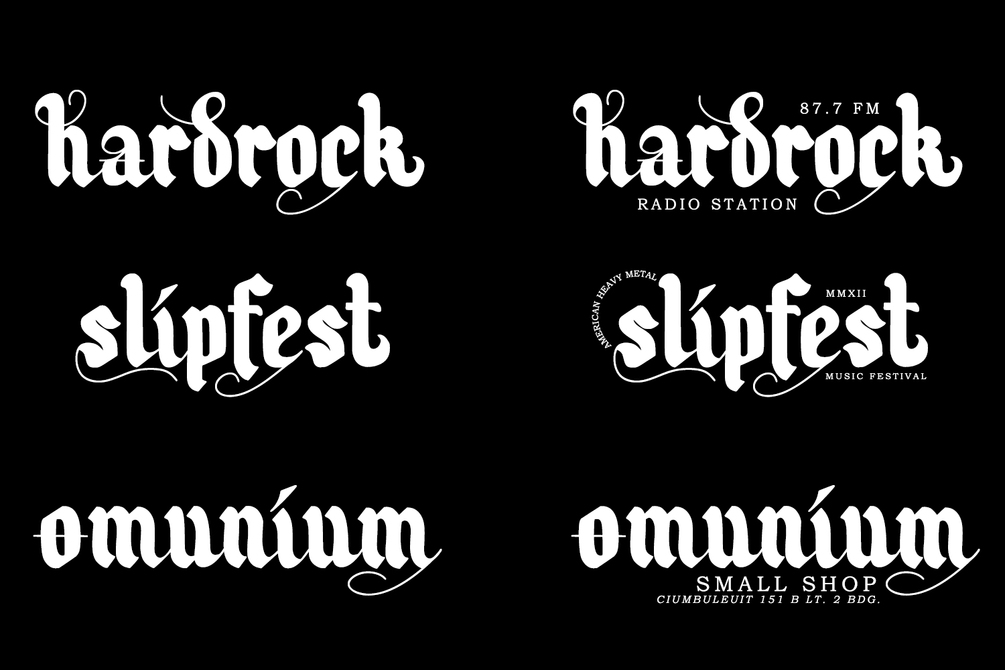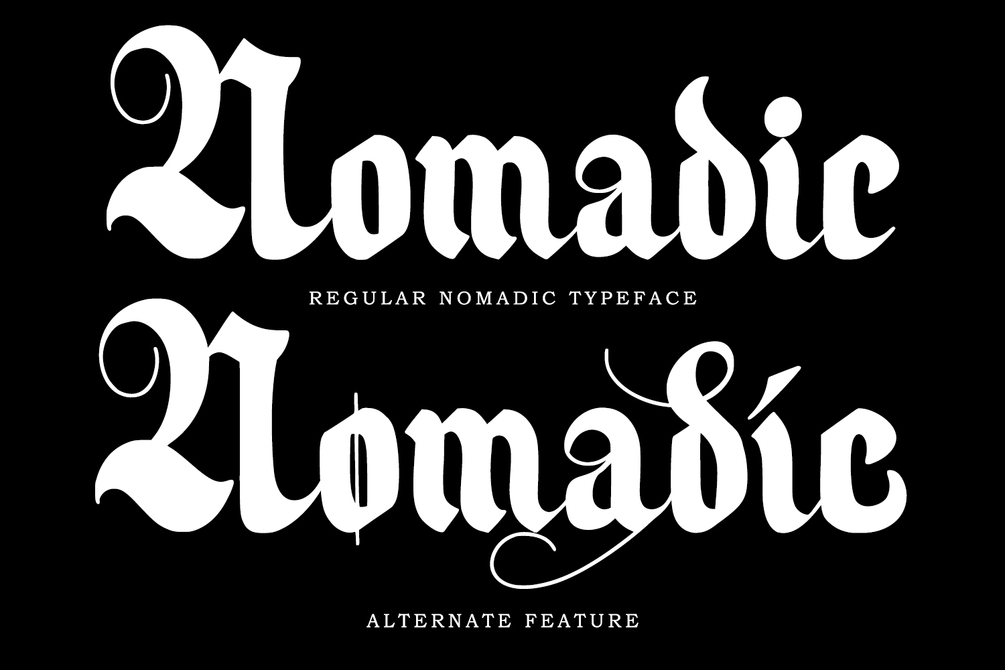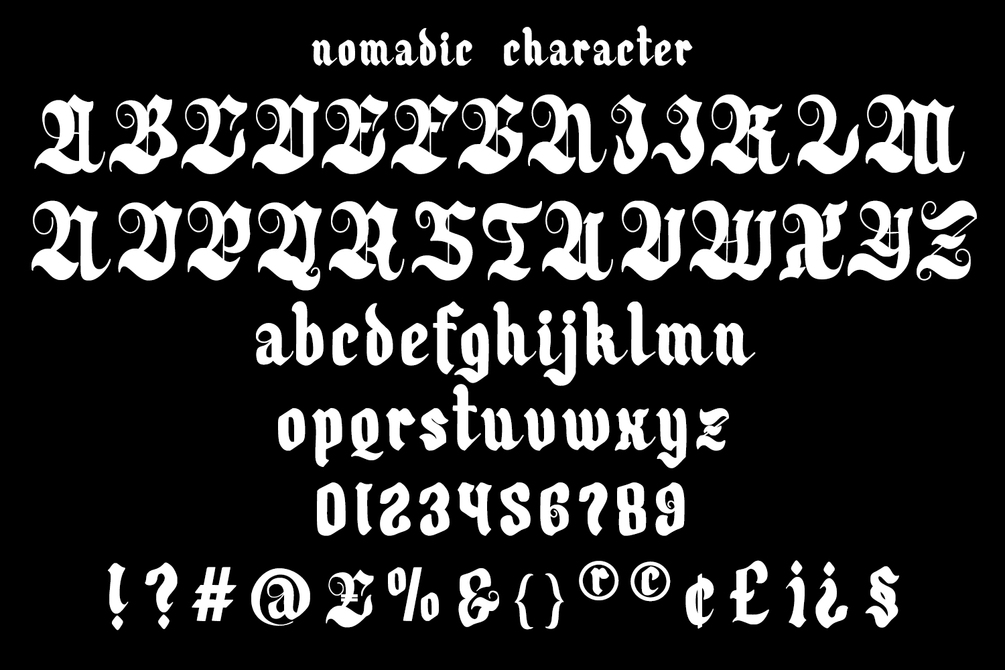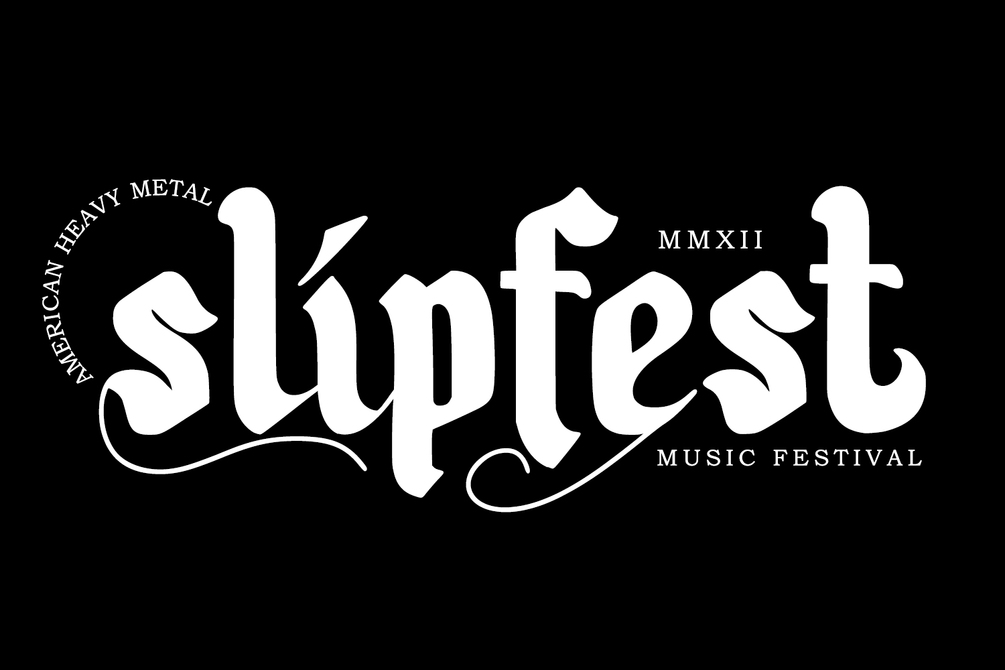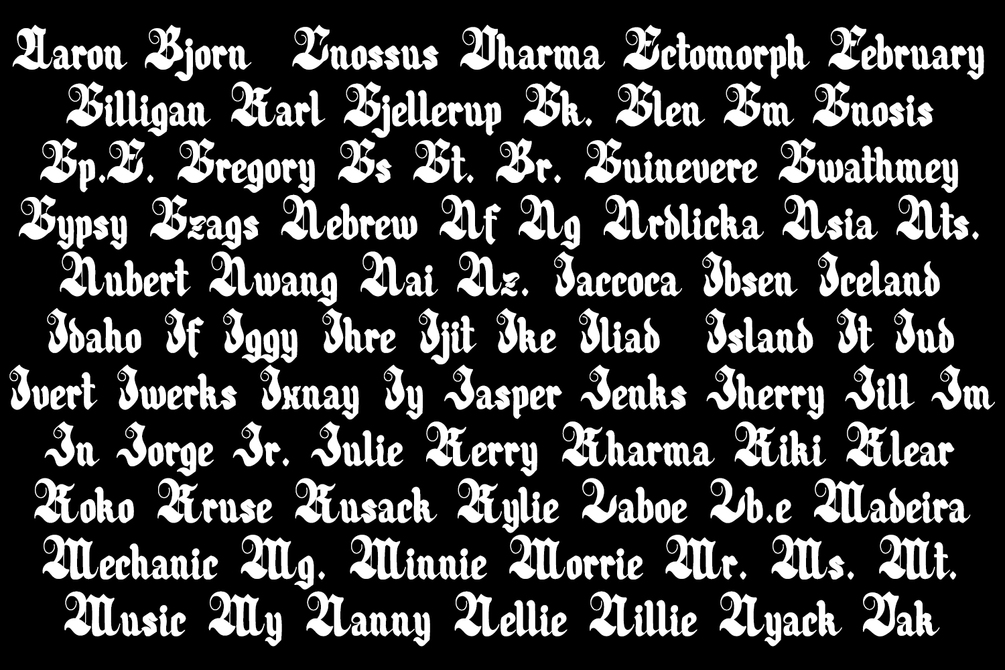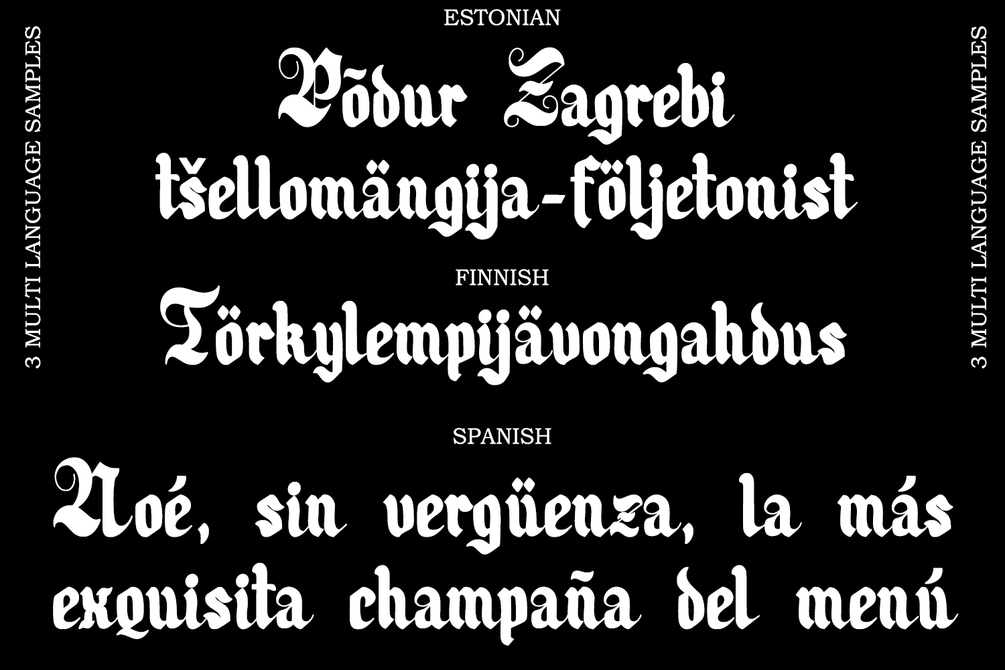
Nomadic - Blackletter Typeface
Nomadic - Blackletter Typeface, also known as Gothic or Old English, is a type of script used in the Middle Ages for manuscripts and inscriptions. It features thick, bold lines contrasted with thin, intricate details, and sharp angular shapes. Blackletter fonts are typically used for titles, headings, and logos, rather than for body text, as they can be hard to read in long passages.
The font is predominantly black with little white space and contains intricate hook-like figures and diagonal strokes. Its letters are ornate and stylized, featuring pointed arches with sharp angles and curves. Its appearance is often associated with medieval and Gothic styles, and it's still favored in some contemporary designs today. Blackletter fonts were prevalent in the early printing era and have since been continually modified and adapted for modern use. Despite its unique and eye-catching style, Blackletter requires careful attention to readability factors to avoid sacrificing readability for style.